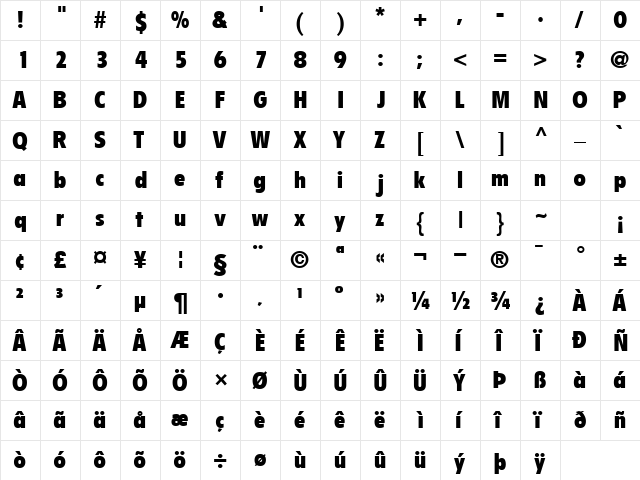
EmphasisBlackCondSSK Regular
EmphasisBlackCondSSK offers clean, dependable letterforms without strong stylistic allegiance, making it a practical choice for designers who need flexibility. The condensed width makes it efficient for tight spaces without sacrificing legibility.